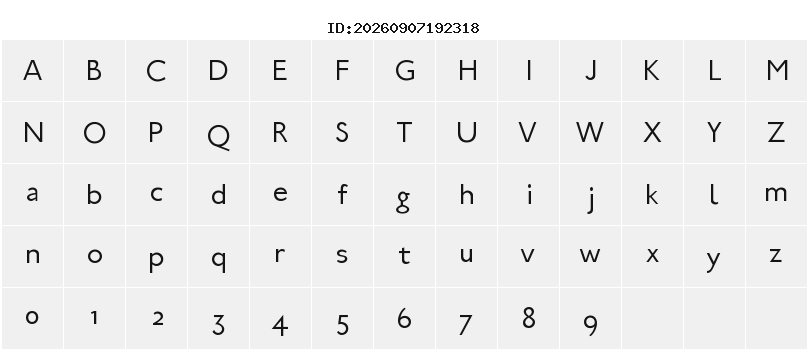
Ubahn-Light Preview
About Ubahn-Light.ttf
Ubahn-Light.ttf is a modern, elegant sans-serif font designed for ultimate readability and visual harmony. Perfect for branding, headlines, web design, and print materials.